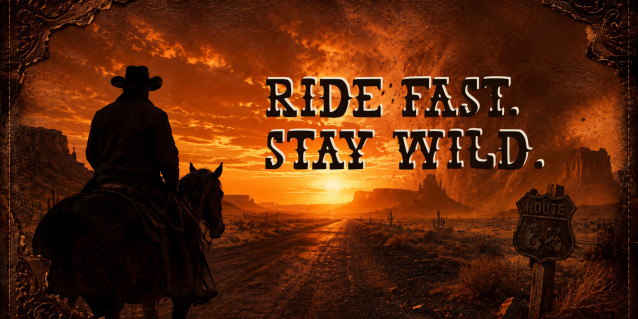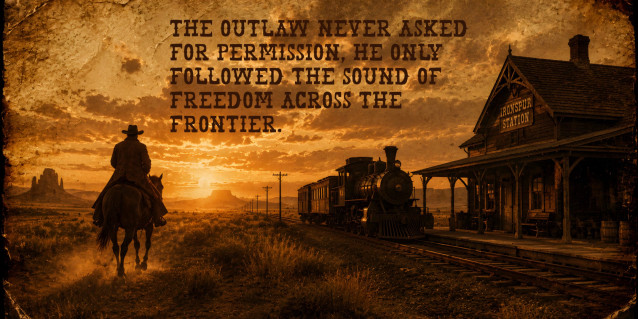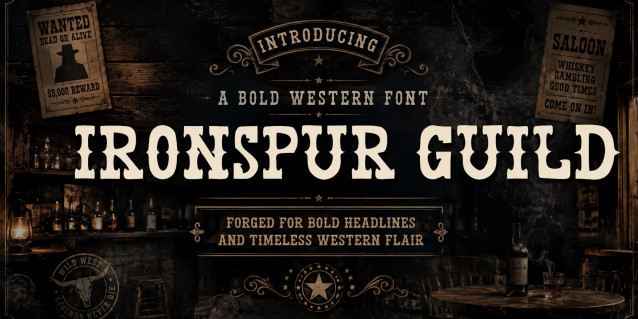
Ironspur Guild-Vintage Western Font
Ironspur Guild-Vintage Western Font is a bold western display font inspired by vintage saloon signs, outlaw posters, and rugged frontier aesthetics. Featuring strong letterforms with classic cowboy-era character, this typeface delivers a powerful presence perfect for headlines, branding, posters, logos, packaging, apparel, and cinematic western-themed designs.
Its sharp personality combines rustic charm with dramatic vintage elegance, making every word feel legendary and timeless. Whether used for Wild West visuals, retro Americana projects, country branding, or bold editorial layouts, Ironspur Guild-Vintage Western Font captures the spirit of freedom, dust, iron, and frontier storytelling.
Drawing inspiration from vintage industrial aesthetics, classic blacksmith artistry, and medieval guild emblems, this font exudes strength, heritage, and rugged sophistication. It features sharp spurs, solid geometric structures, and clean decorative lines that make it instantly eye-catching. Ironspur Guild is an exceptional choice for microstock contributors and designers looking to create impactful t-shirt designs, retro labels, beverage packaging, posters, and sports team merchandise. Its timeless, masculine character brings a professional and commanding presence to any display typography project.